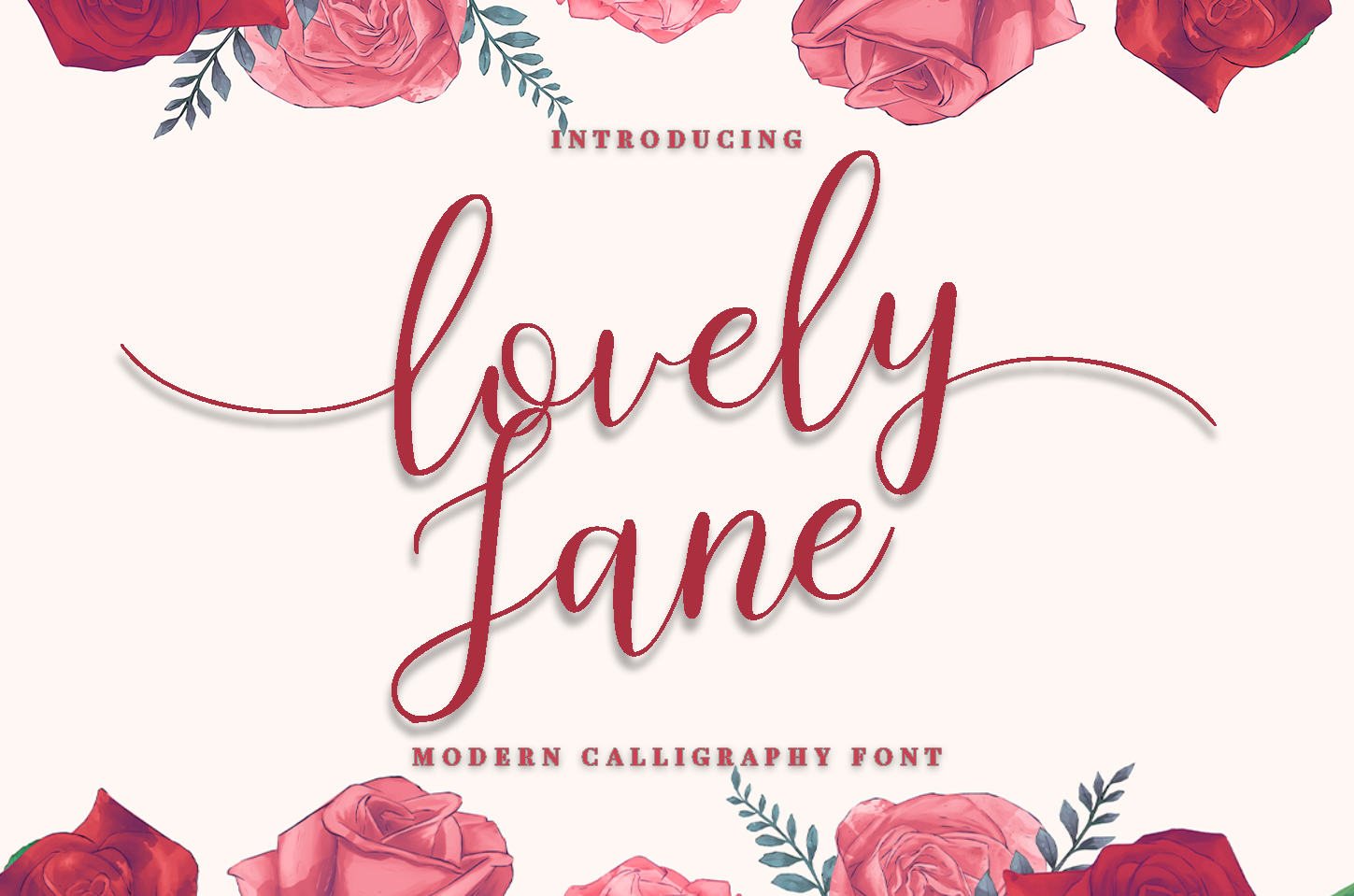
lovely Jane||Modern calligraphy font
lovely Jane - a new fresh handmade calligraphy font.
Very suitable for greeting cards, branding materials, business cards, quotes, posters, and more!This font are perfect for wedding postcard. Or you can create perfect and unique design of your logo, blog, stationery, marketing, magazines and more :)
Ligatures (ll tt) ,Alternates.